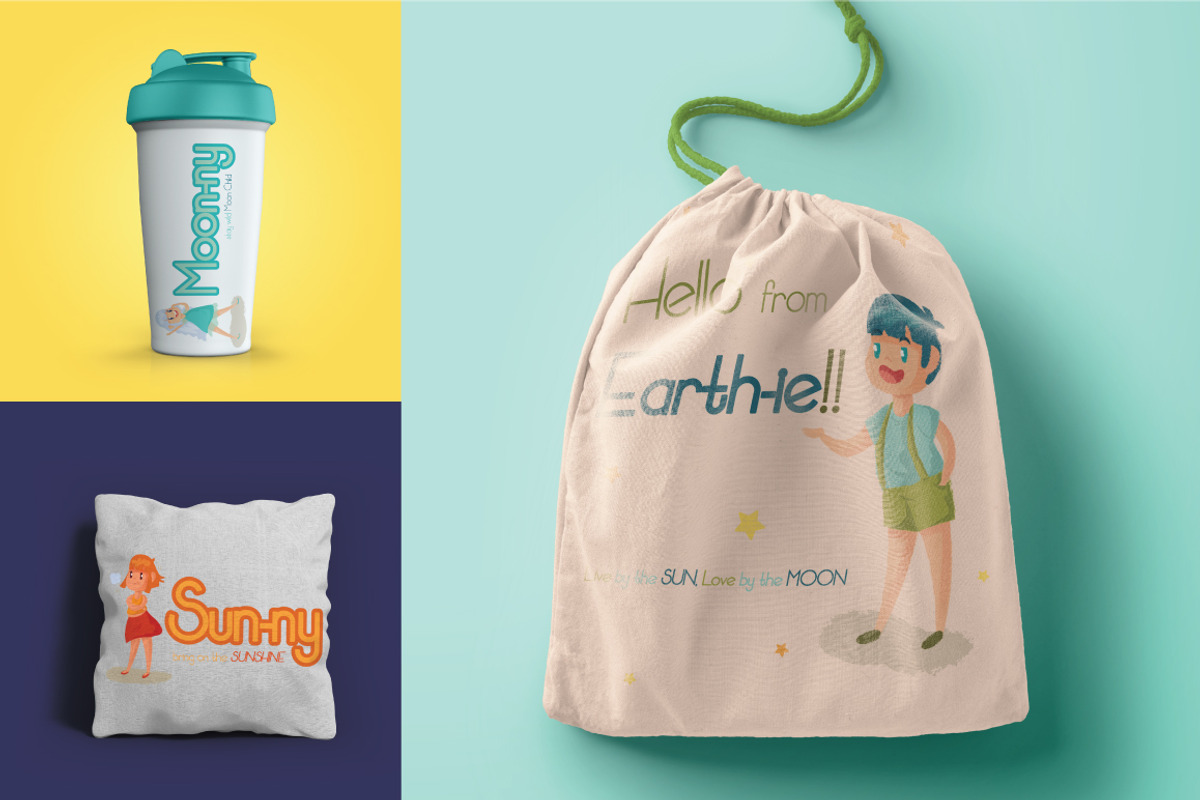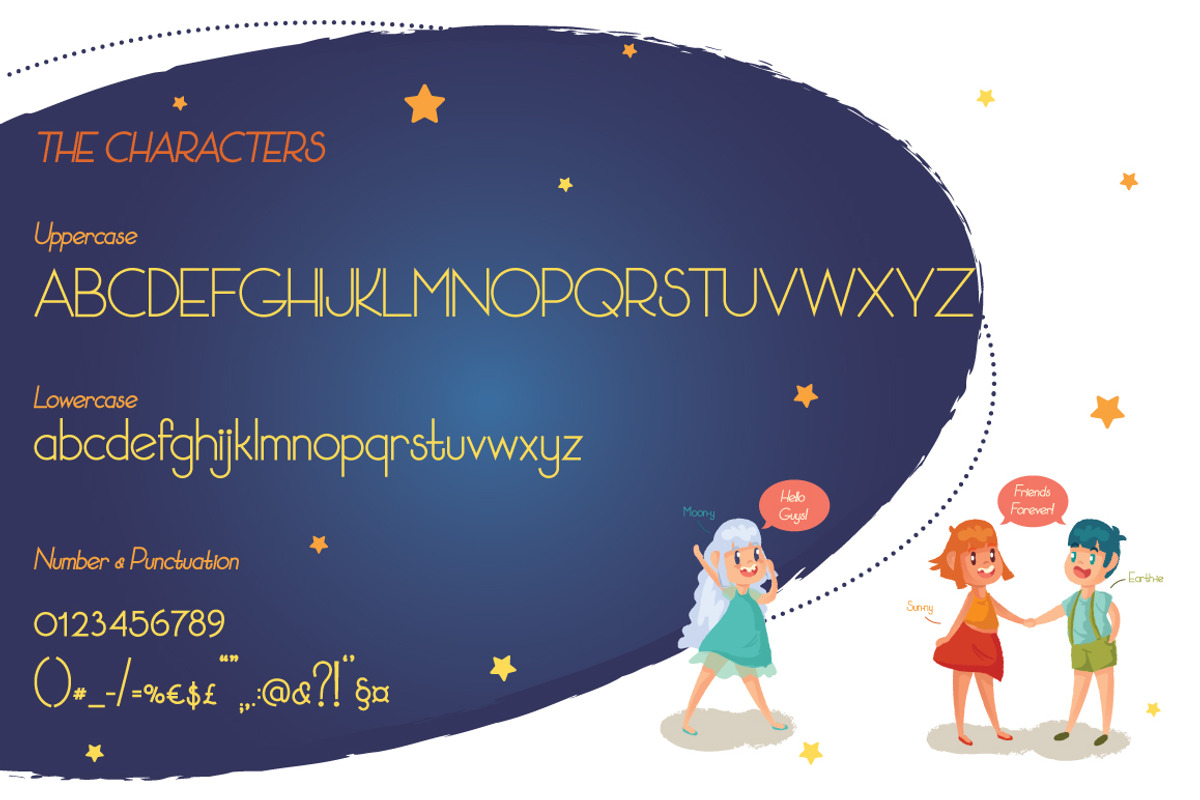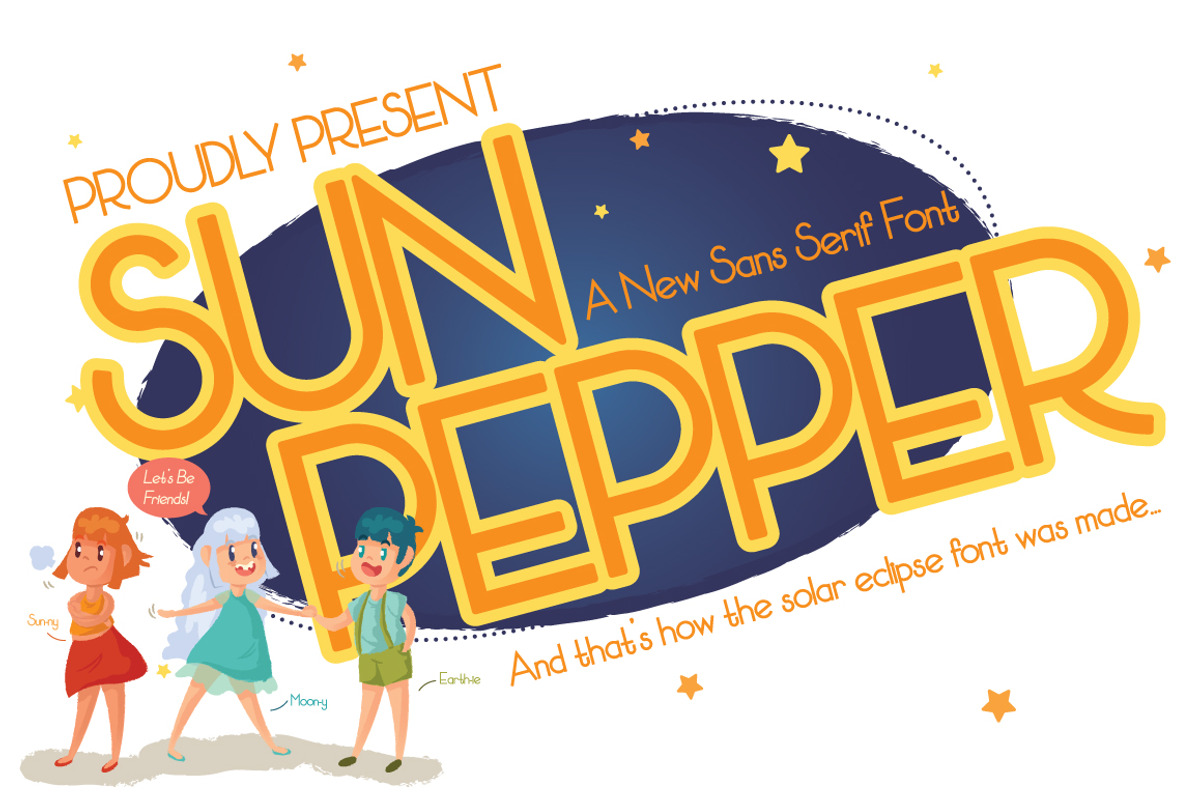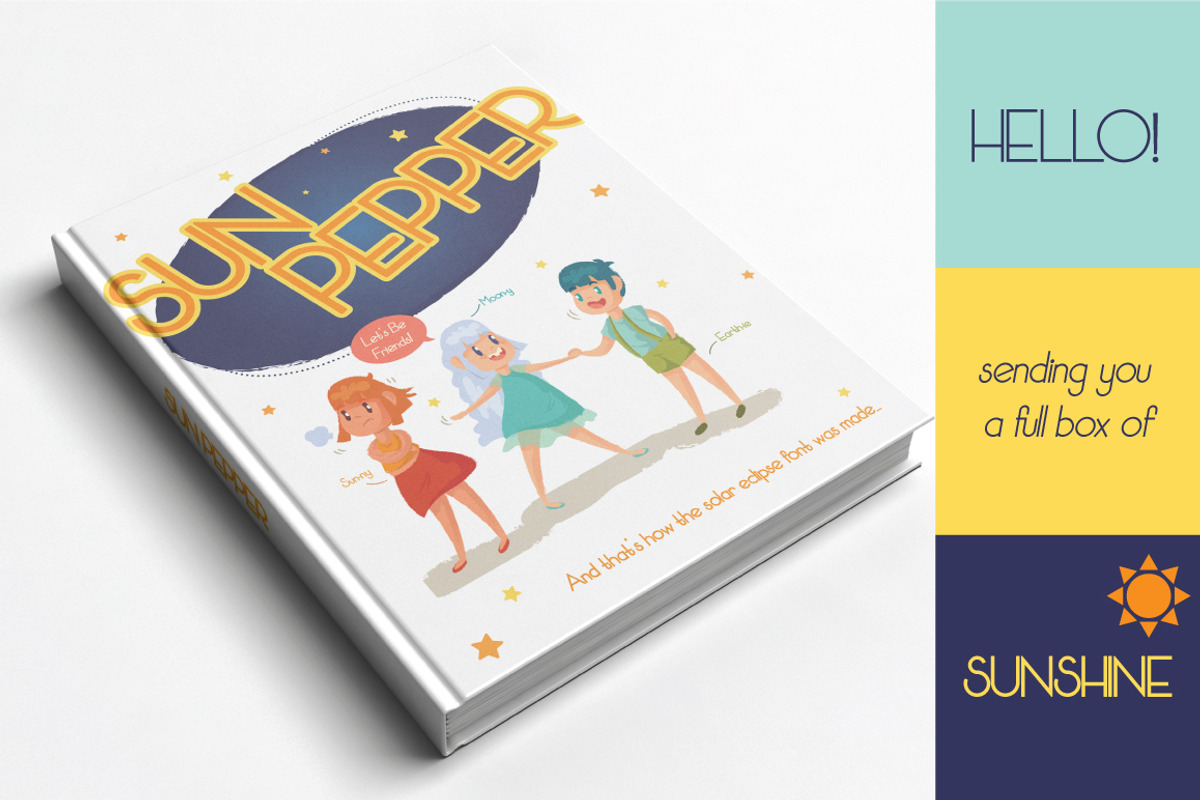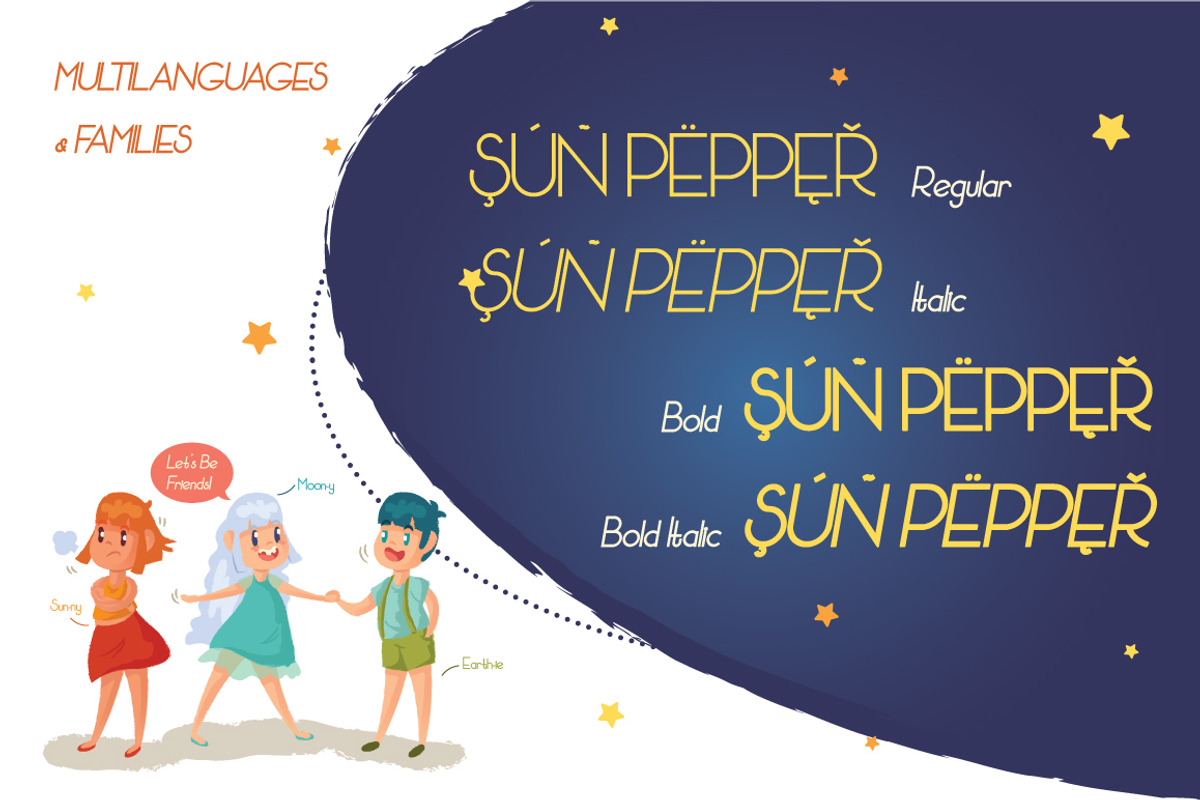
Sun Pepper
Sun Pepper a new fresh & modern sans serif with a handmade style and full of happines.
They are perfect to use for: logos, branding, home decor, signs, mugs, shirts, pantry labels, stickers, greeting cards, posters, social media, planner prints, and etc. Just have a great fun with Sun Pepper on your design!
- Sun Pepper Regular (uppercase, lowercase, numeric, punctuation, Multilanguages)
- Sun Pepper Bold (uppercase, lowercase, numeric, punctuation, Multilanguages)
- Sun Pepper Italic (uppercase, lowercase, numeric, punctuation, Multilanguages)
- Sun Pepper Bold Italic (uppercase, lowercase, numeric, punctuation, Multilanguages) =======================================